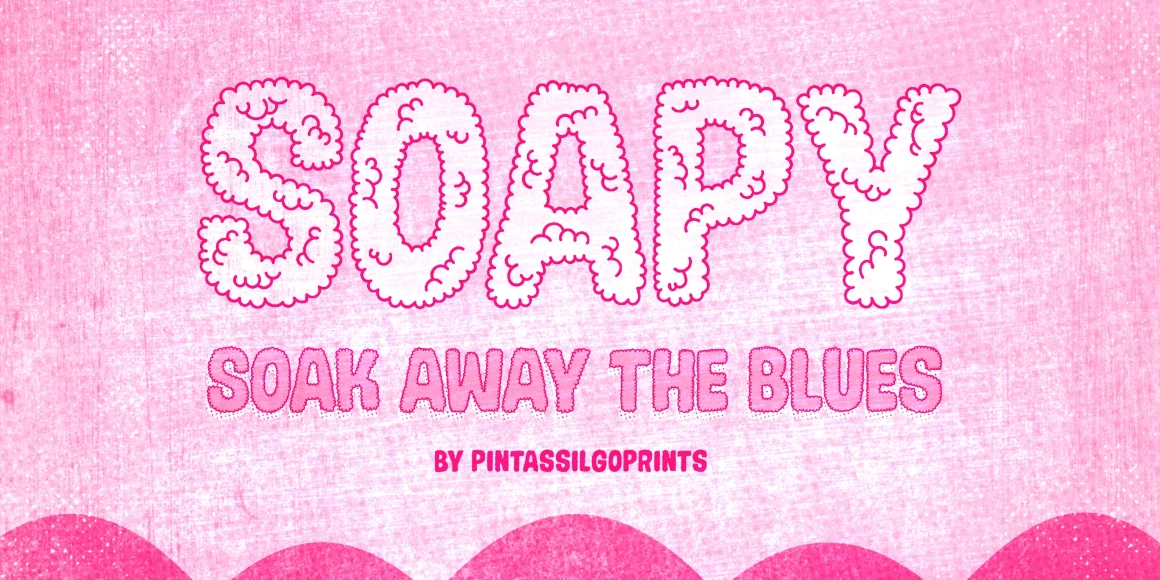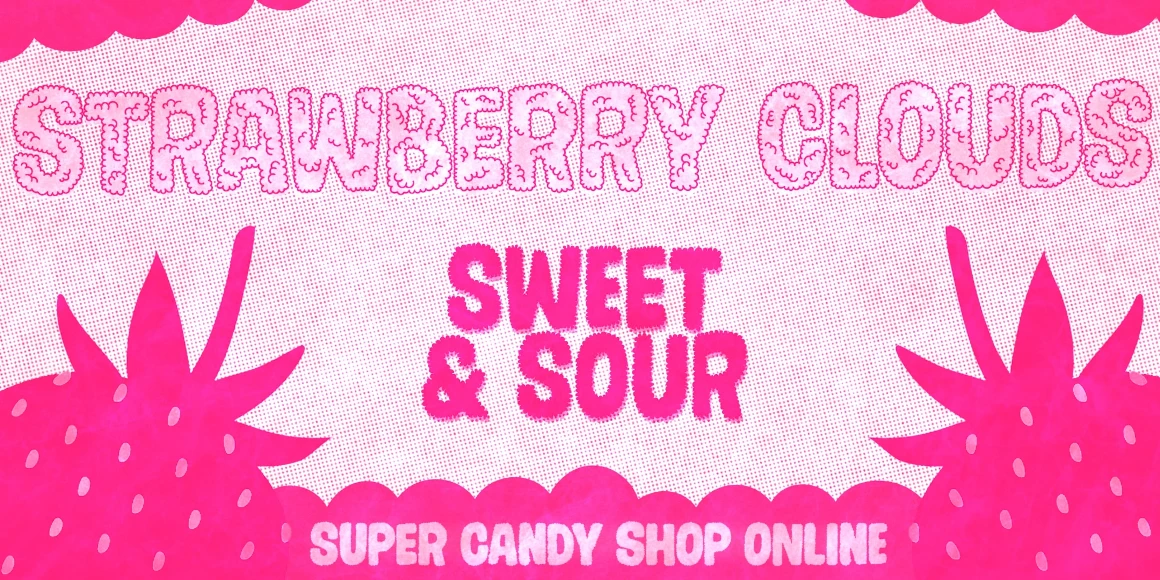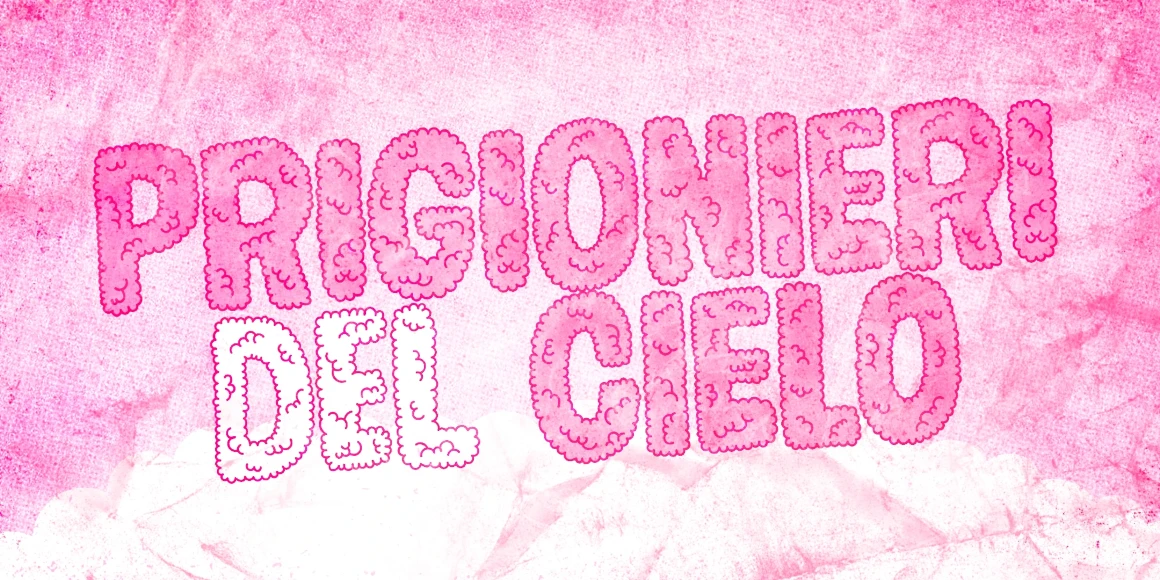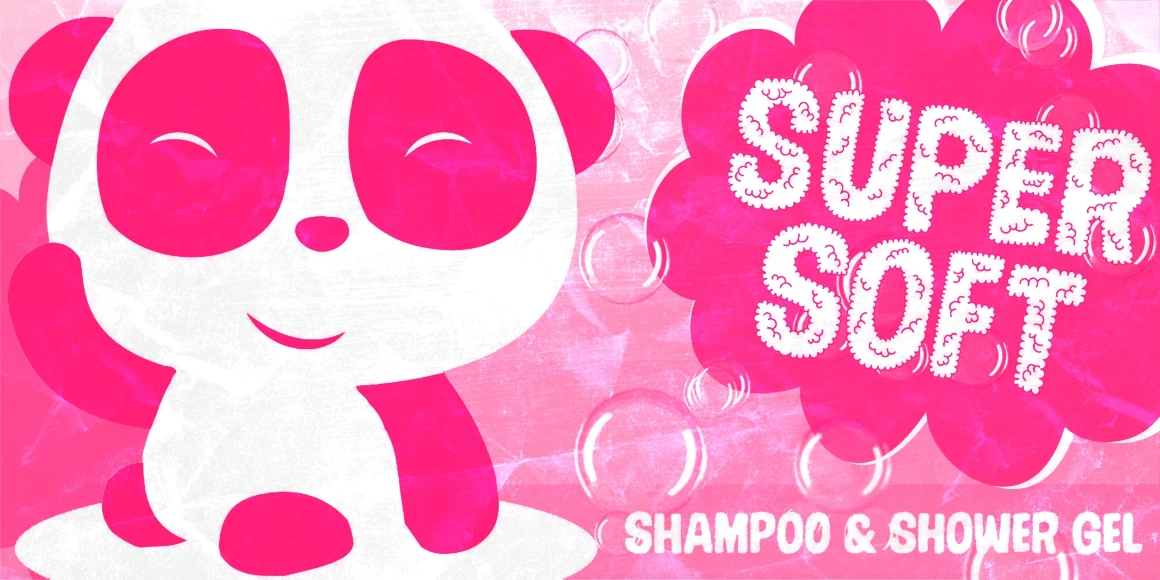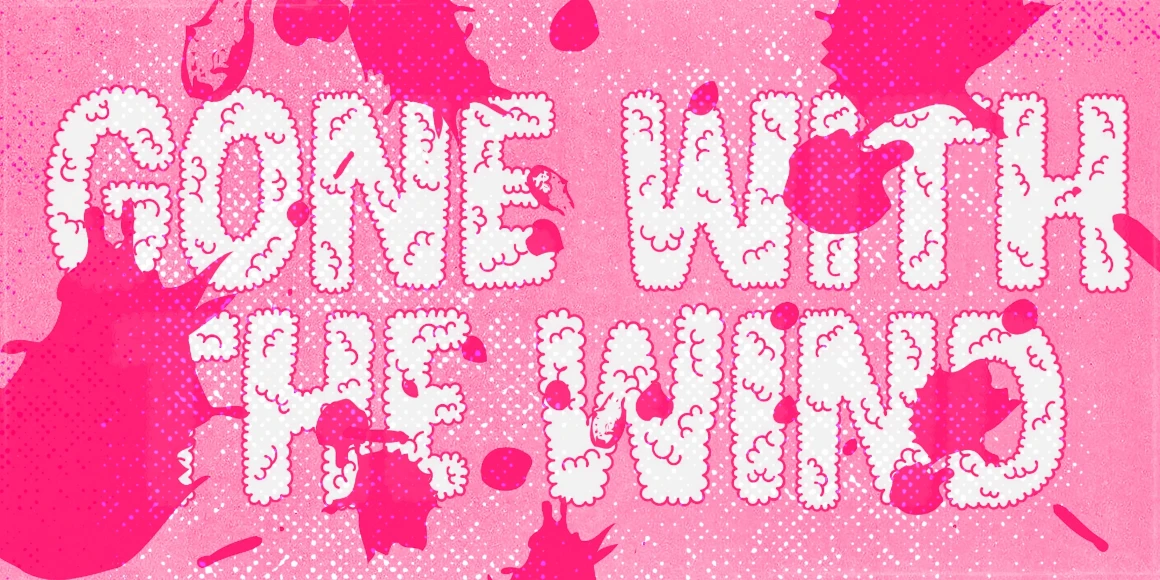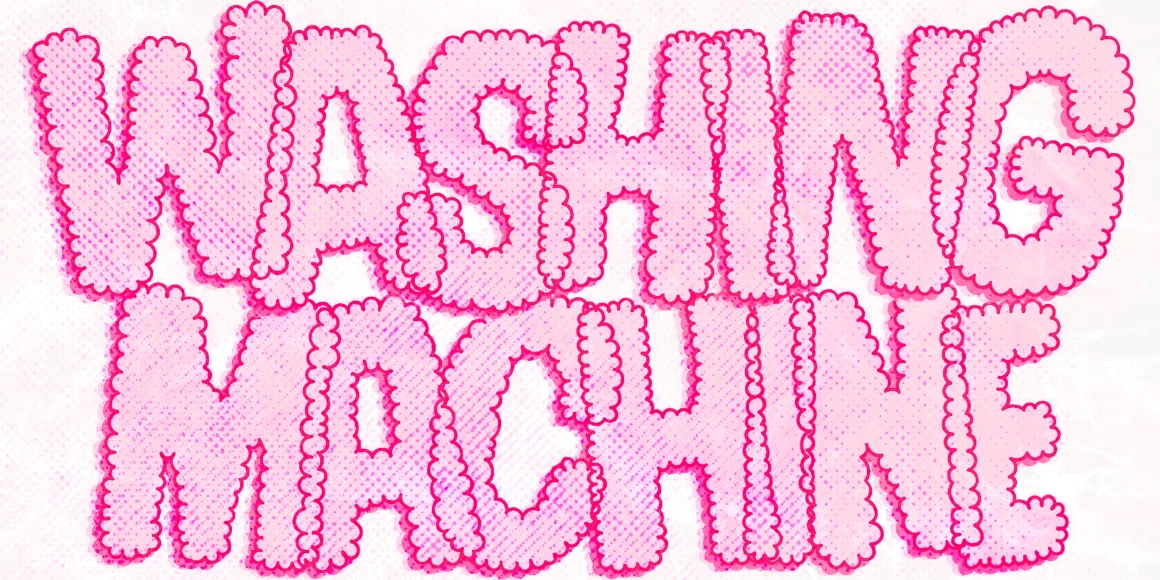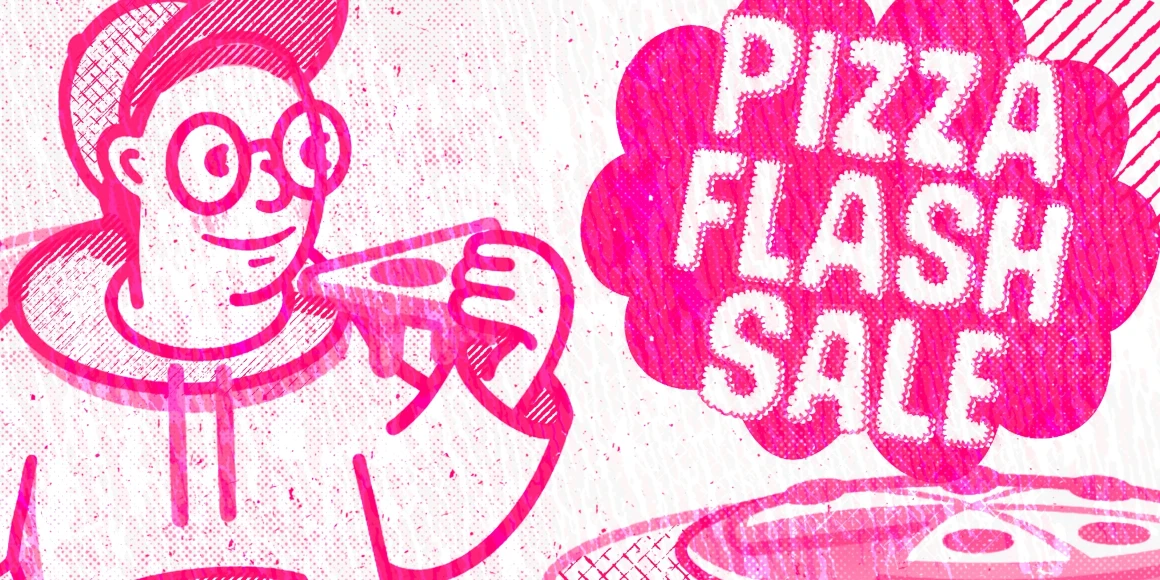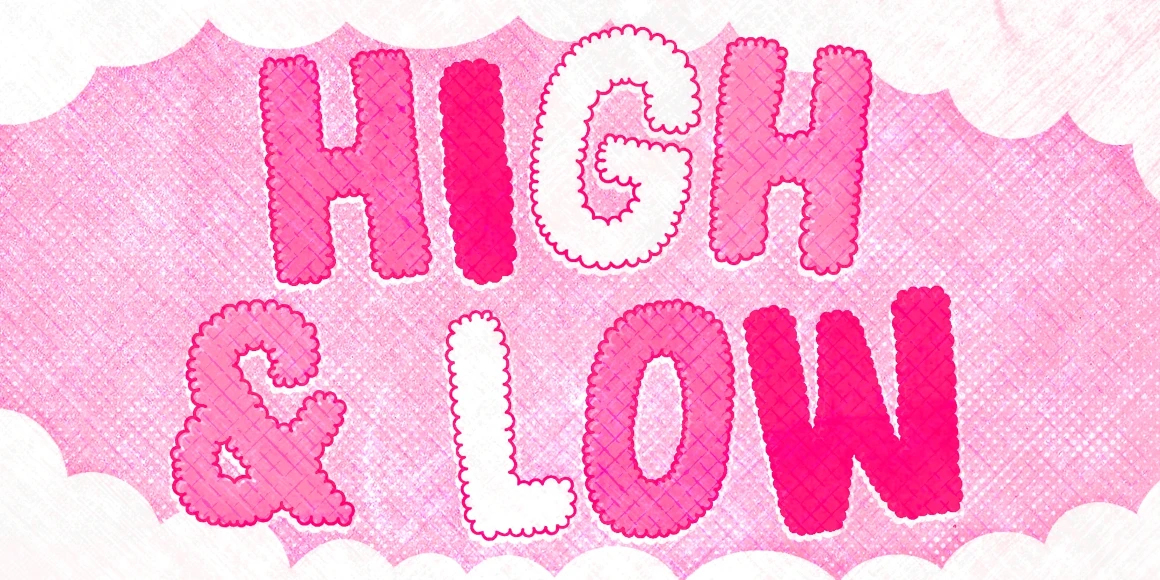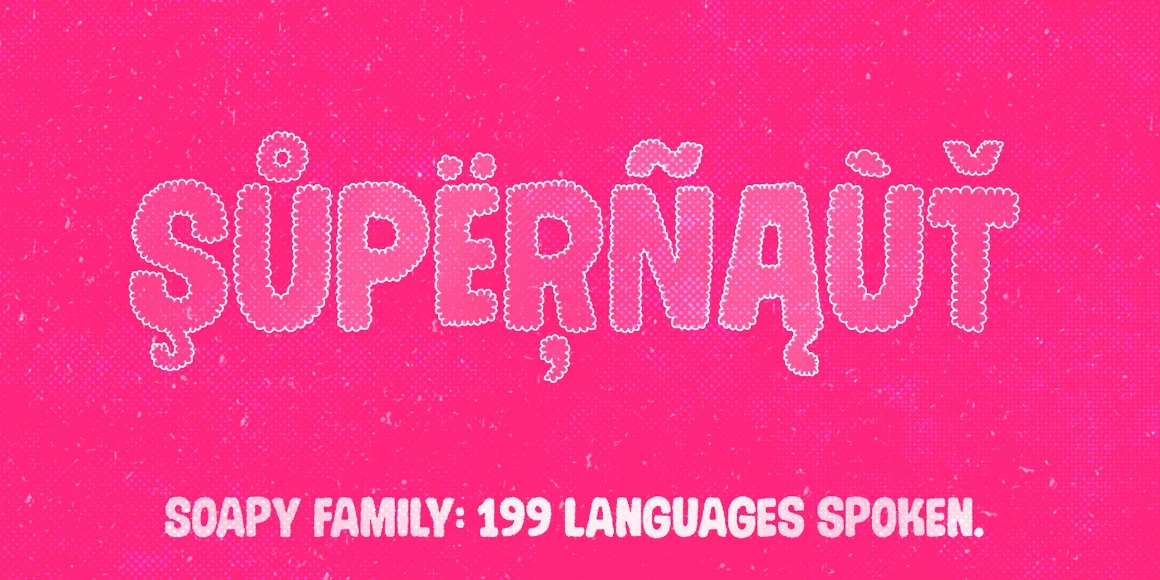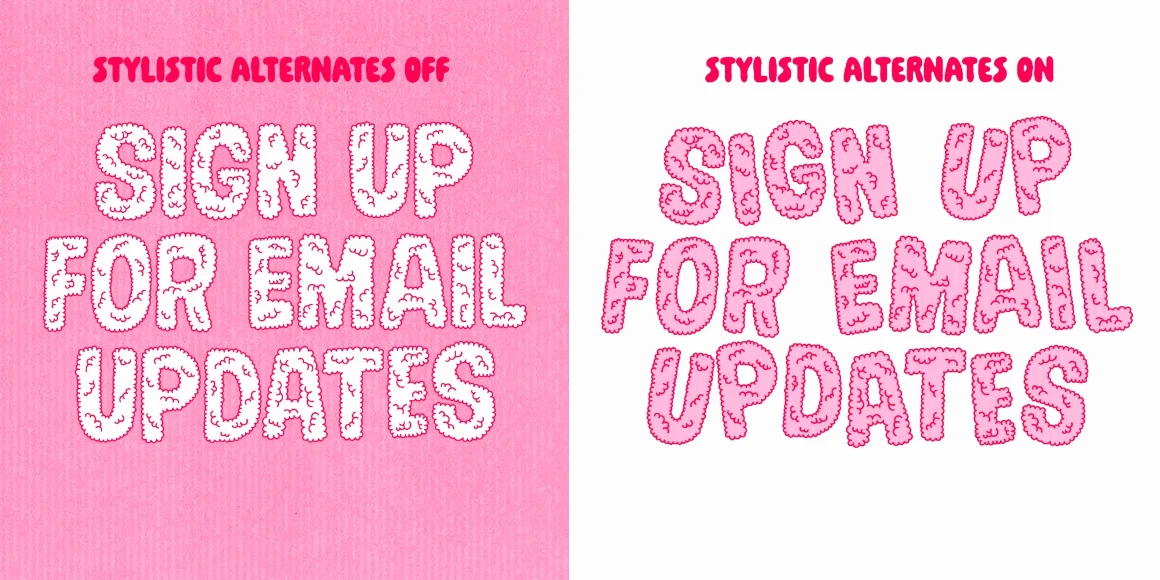
Soapy
Soapy is a decorative, cartoon-like font family, naturally scented and dermatologically tested. Was it drawn with bubbles? It could also be shrubbery! With a vibrating structure, you can utilize stylistic alternates to further enhance the sensation of an animated, bouncy baseline or use different styles to create a layered look. Great for adding a cheerfully expressive personality to book covers, toy packaging, kids’ apparel, or playful signage. Put a smile in your headline! Get Soapy!
Soapy Color
Soapy Outline
Soapy Regular
Soapy Solid
Soapy Strange